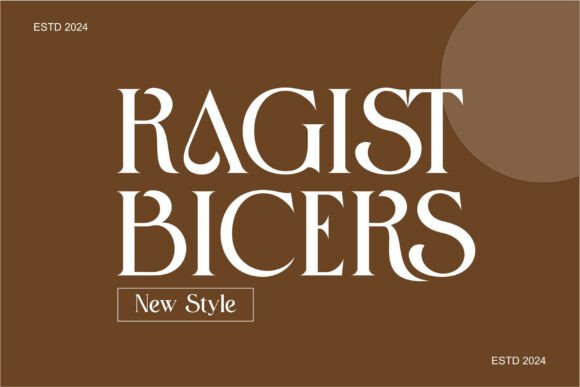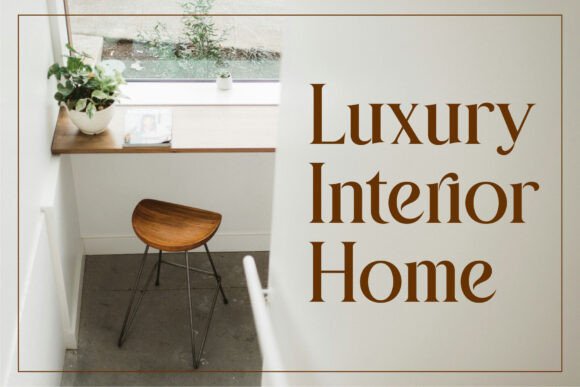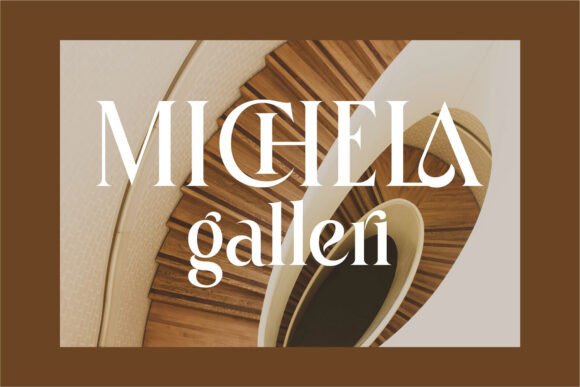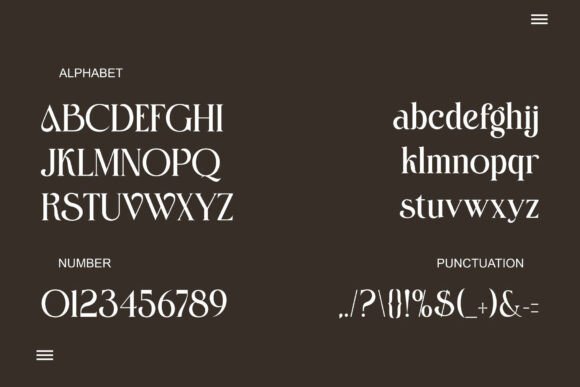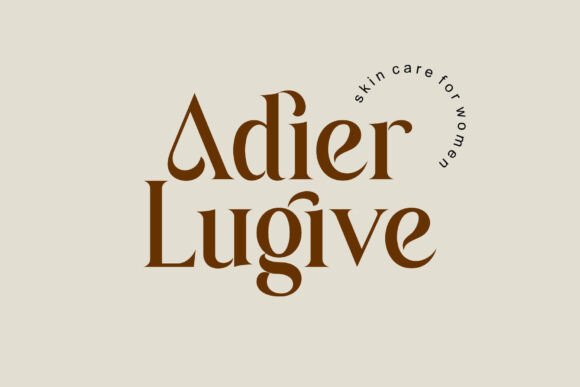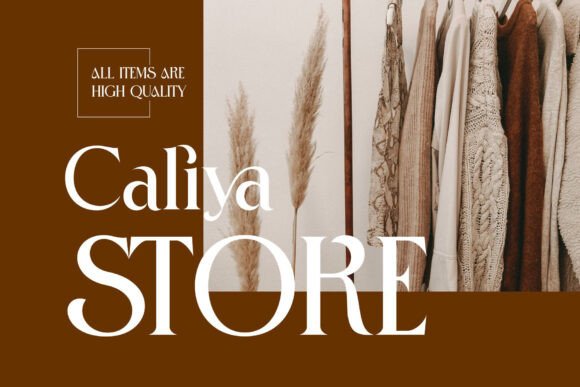
Introduction to Relling Font
Relling is an elegant and bold serif font.
Fall in love with its incredibly versatile style and use it to create gorgeous wedding invitations, beautiful stationary art, eye-catching social media posts, and much more .
Key Features of Relling Font